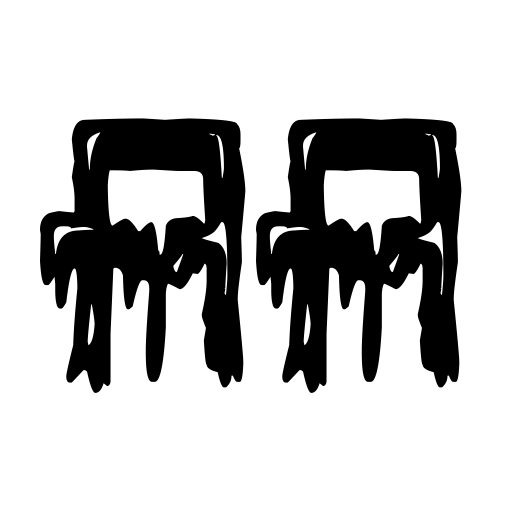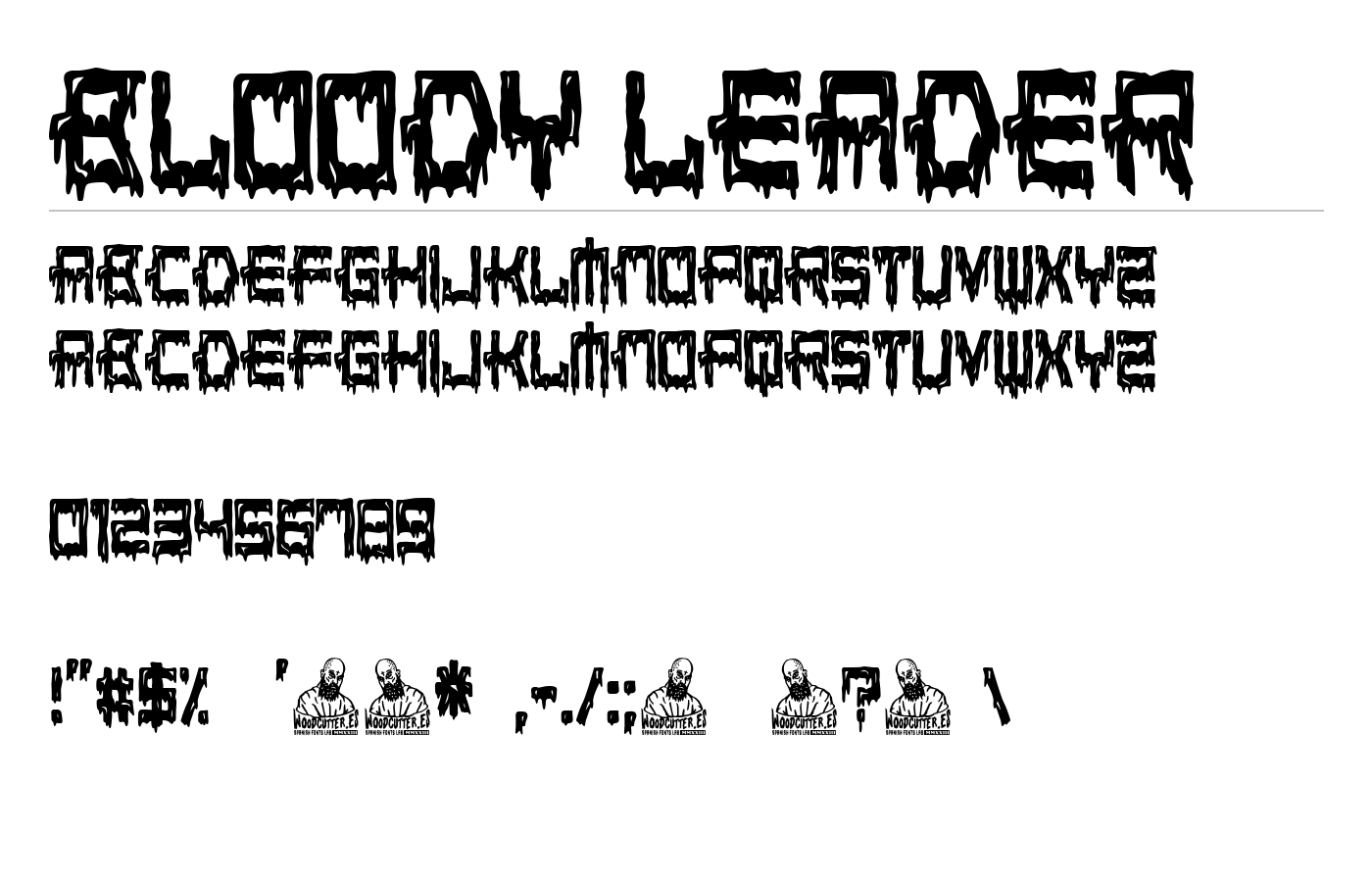
Bloody Leader is a bold, horror-themed display font with thick, dripping stroke details that give the impression of melting or bleeding. Its heavy weight and irregular edges create a chilling, dramatic effect that works perfectly for Halloween, horror movie posters, and spooky event branding. This font is ideal for headlines and decorative use when you want to evoke a dark, eerie atmosphere.
Bloody Leader Font
About Bloody Leader Font